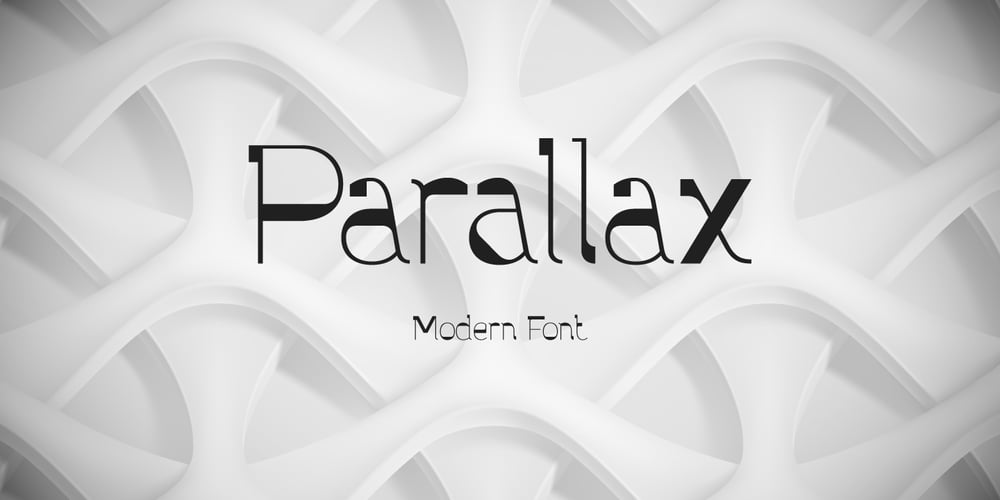
Parallax Font Family was designed by Gleb Guralnyk and published by Gleb Guralnyk. Parallax contains 1 styles and family package options. Parallax is a modern, creative, geometric typeface with random contrast changes in the characters. It includes 26 contextual alternates that will help you to avoid similar letters in most cases. You can always exchange the letters using stylistic alternates feature.Parallax font have a multilingual support of west european languages, please check out all available characters on screenshot.Thank you and have a nice day!